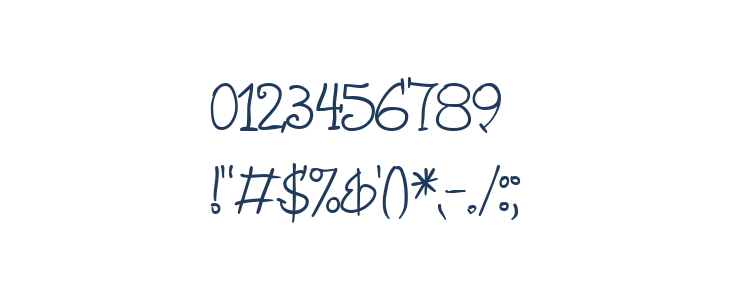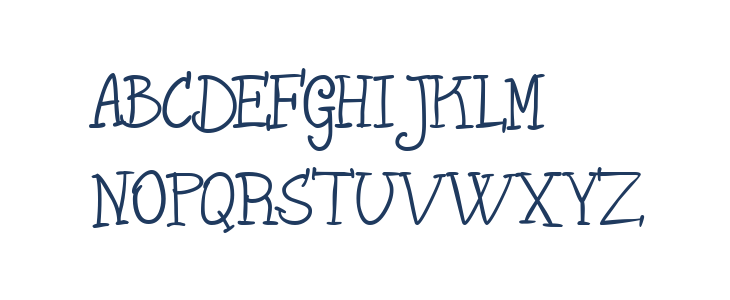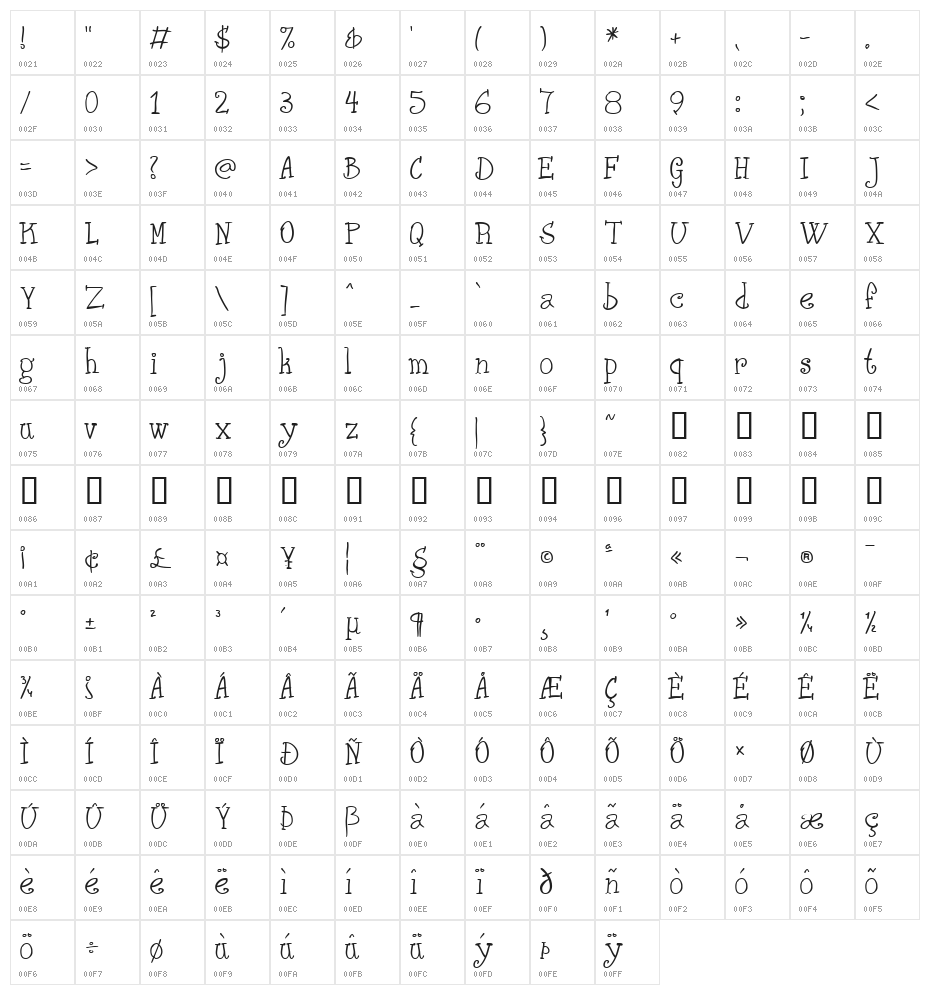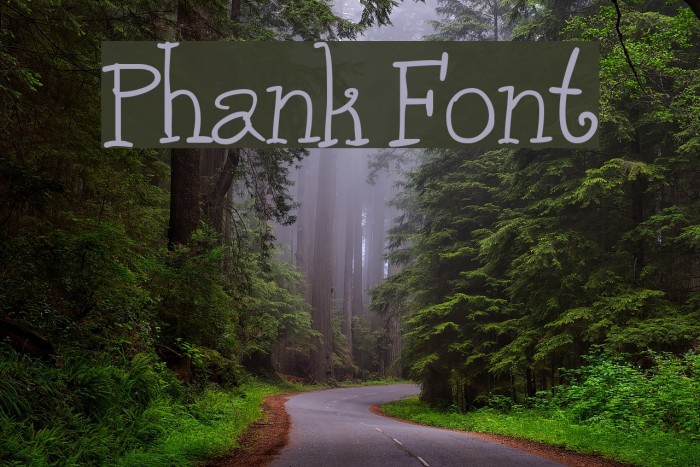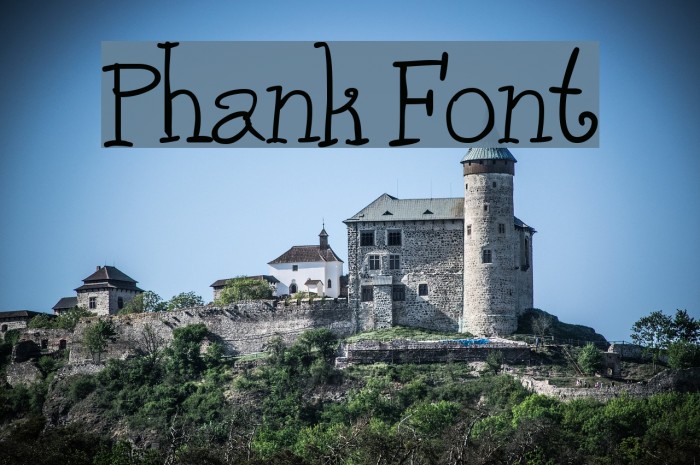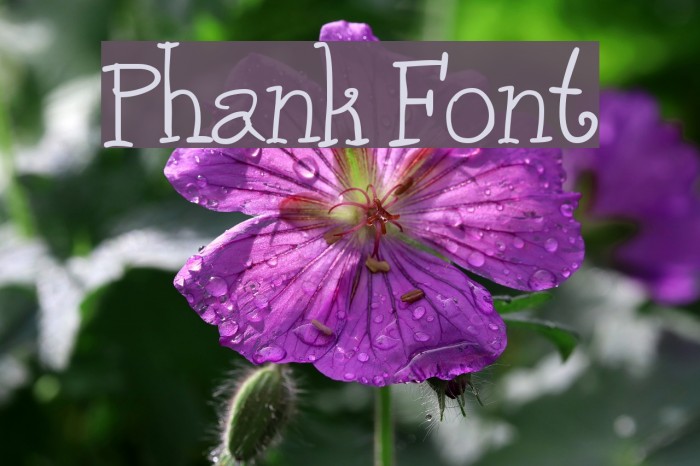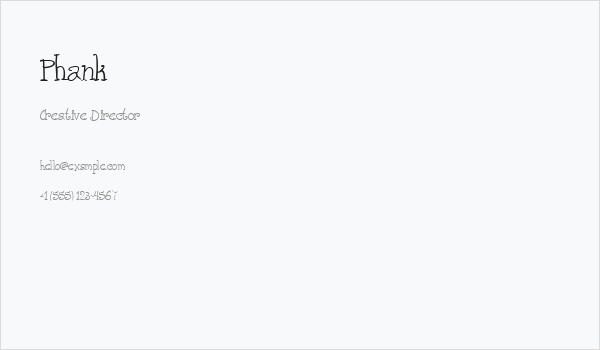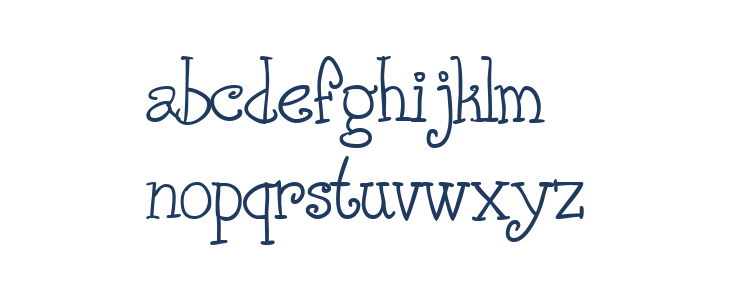
Phank Font
Phank Description
This font features a playful and whimsical style with a handwritten appearance. The characters are slightly irregular, adding a casual and friendly vibe. The uppercase letters are bold and prominent, while the lowercase letters maintain a consistent flow with unique loops and curves. The numbers are equally playful, matching the overall aesthetic. Special characters are creatively designed, enhancing the font's decorative appeal. This font is perfect for projects that require a touch of personality and charm.
| Proposed Projects | Ideal for greeting cards, children's books, playful branding, and creative posters. |